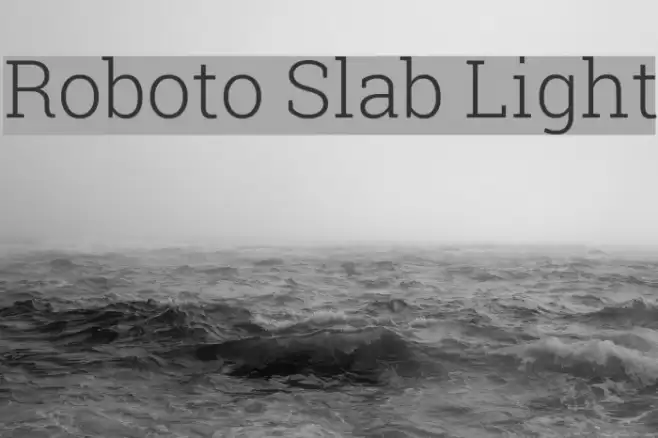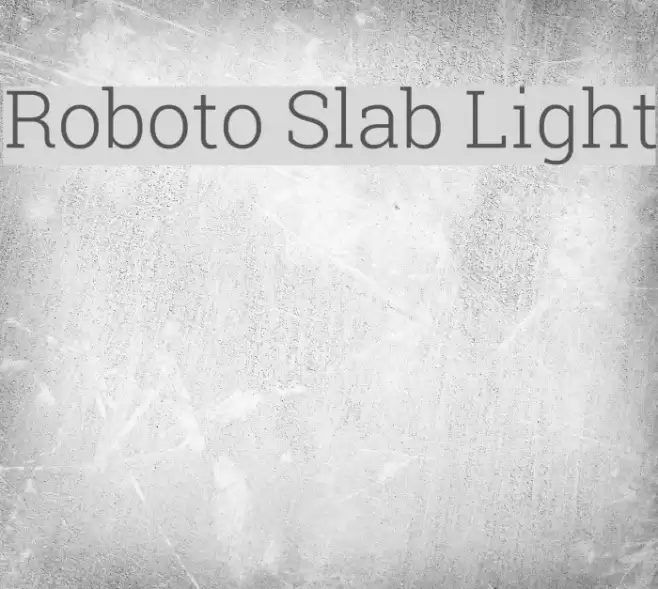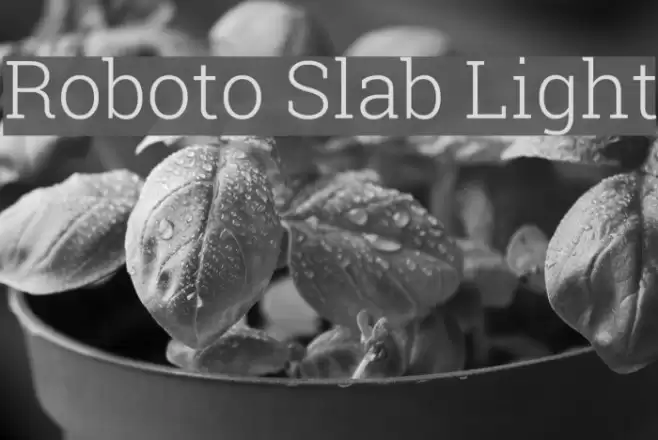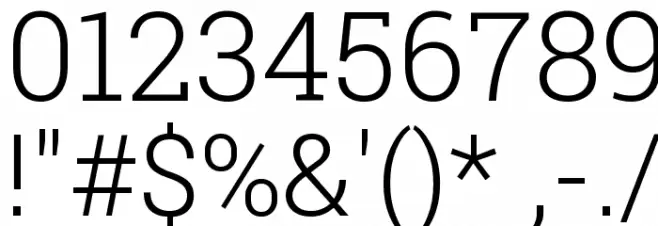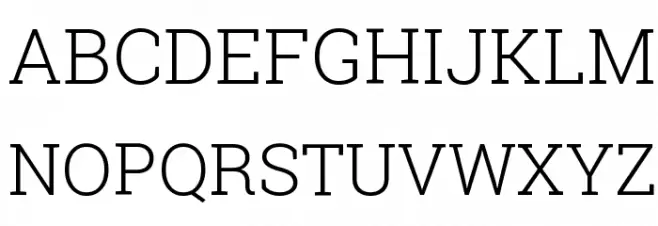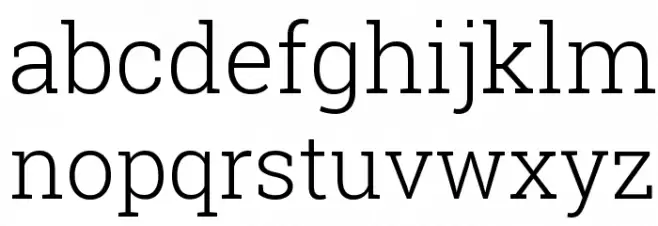
Roboto Slab Light Font
Roboto Slab Light Description
This font features a clean and modern slab serif design with a light weight, offering a balanced and readable appearance. The characters are well-proportioned with a slight contrast in stroke thickness, giving it a subtle elegance. The serifs are straight and minimal, adding to its contemporary feel. It maintains a consistent line width, which enhances its legibility across various sizes. The overall style is versatile, making it suitable for both digital and print media. Its simplicity and clarity make it an excellent choice for projects that require a professional and approachable look.
A modern, light slab serif font with clean lines and subtle elegance from Serif fonts.
- Proposed Projects: Ideal for websites, corporate branding, editorial design, and user interfaces.
- Use Case: Headlines, Body text, Logos